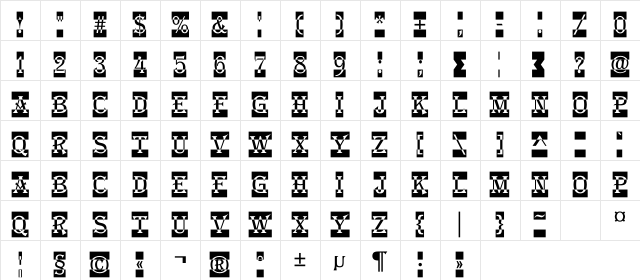
a_AlgeriusNrDcCm Regular
Design Context for a_AlgeriusNrDcCm Typeface
a_AlgeriusNrDcCm takes a measured approach to typography — its balanced proportions and neutral character make it a reliable workhorse for both digital and print work.